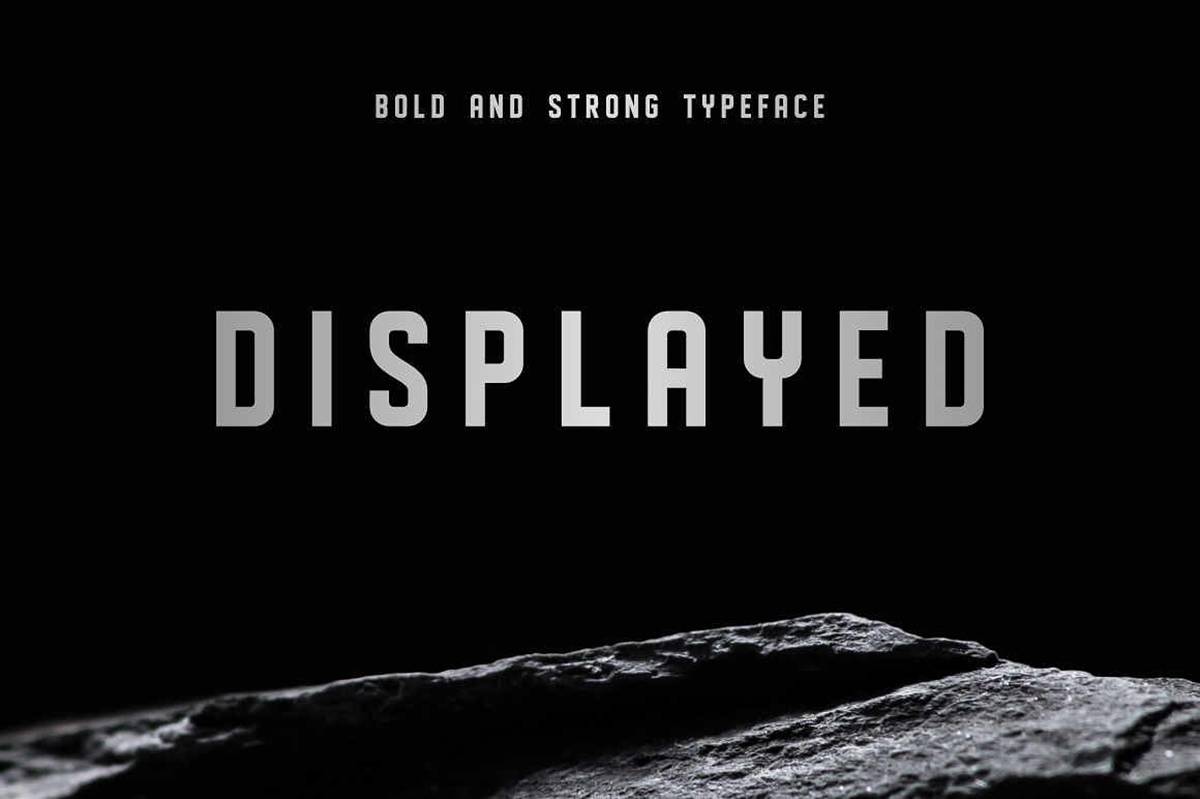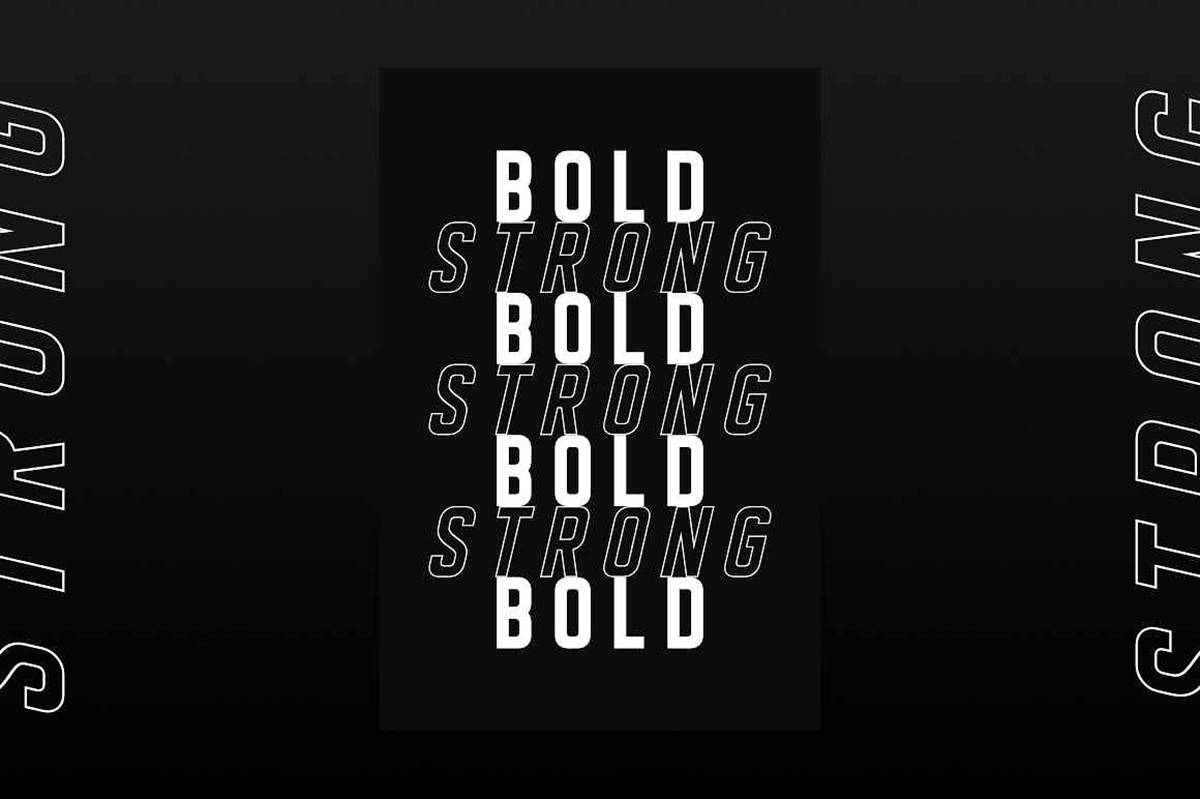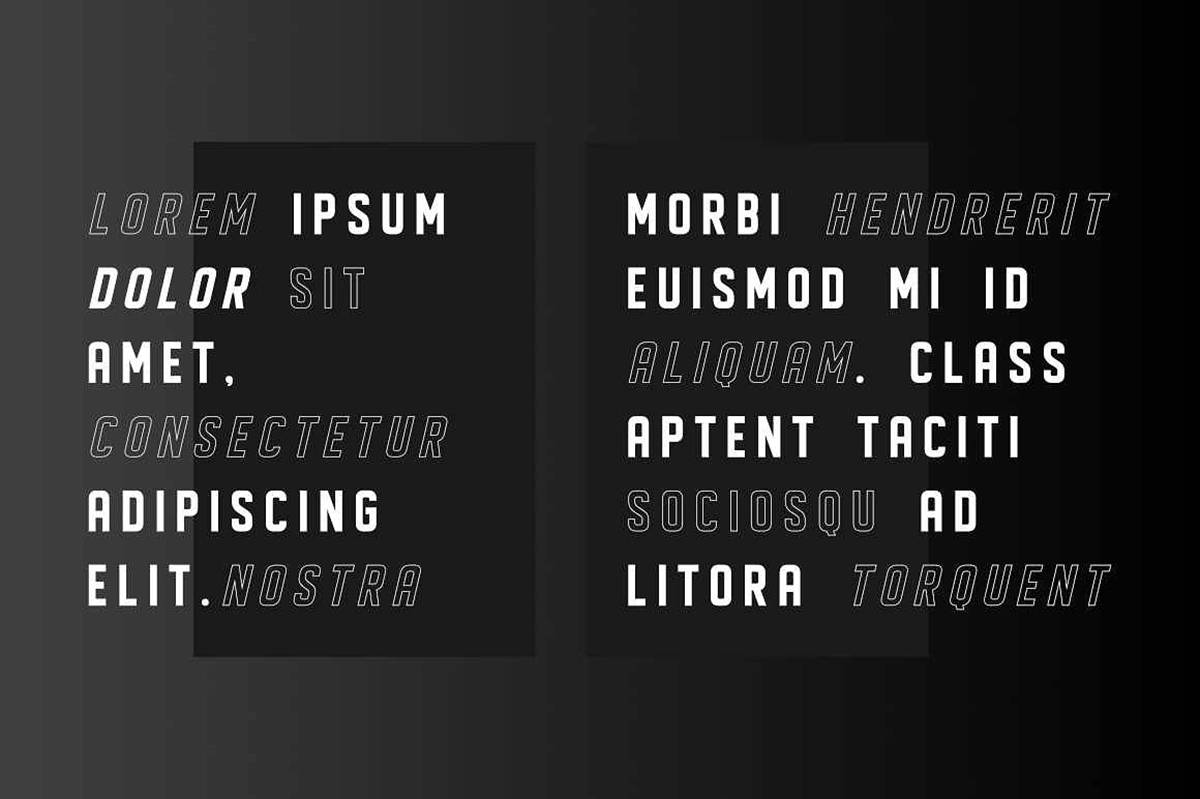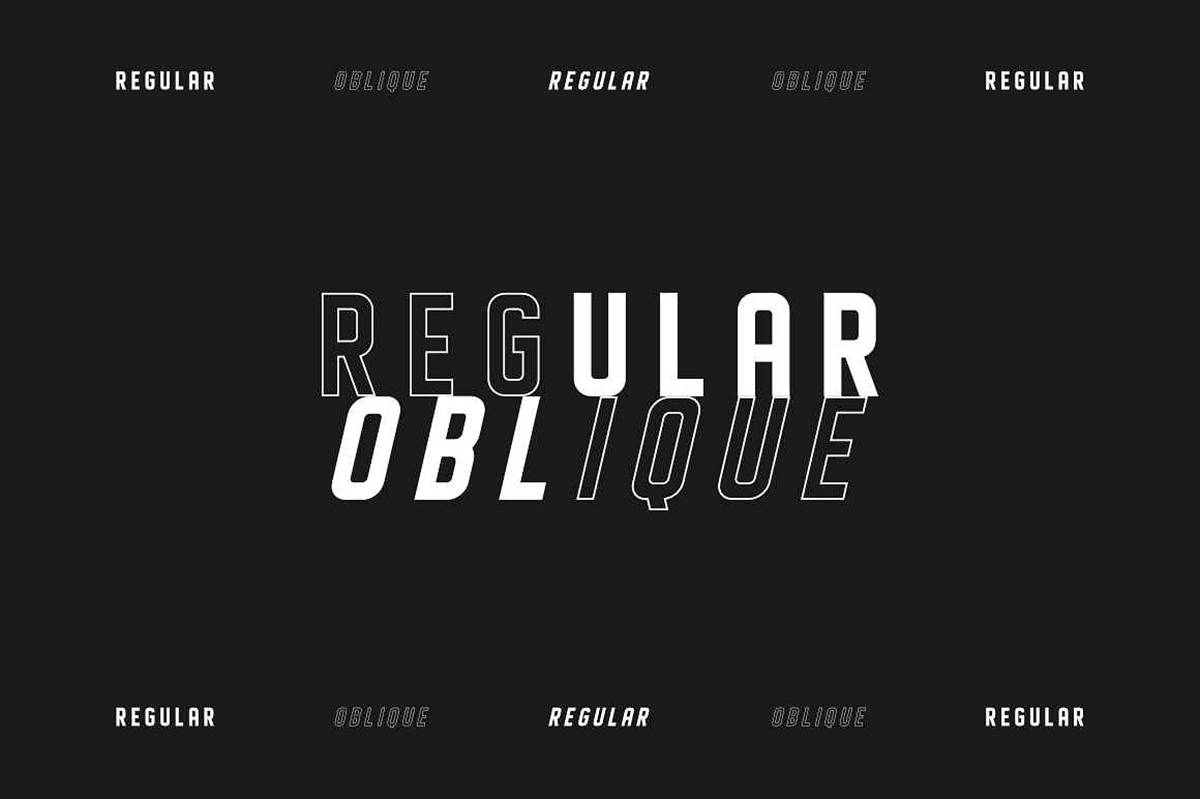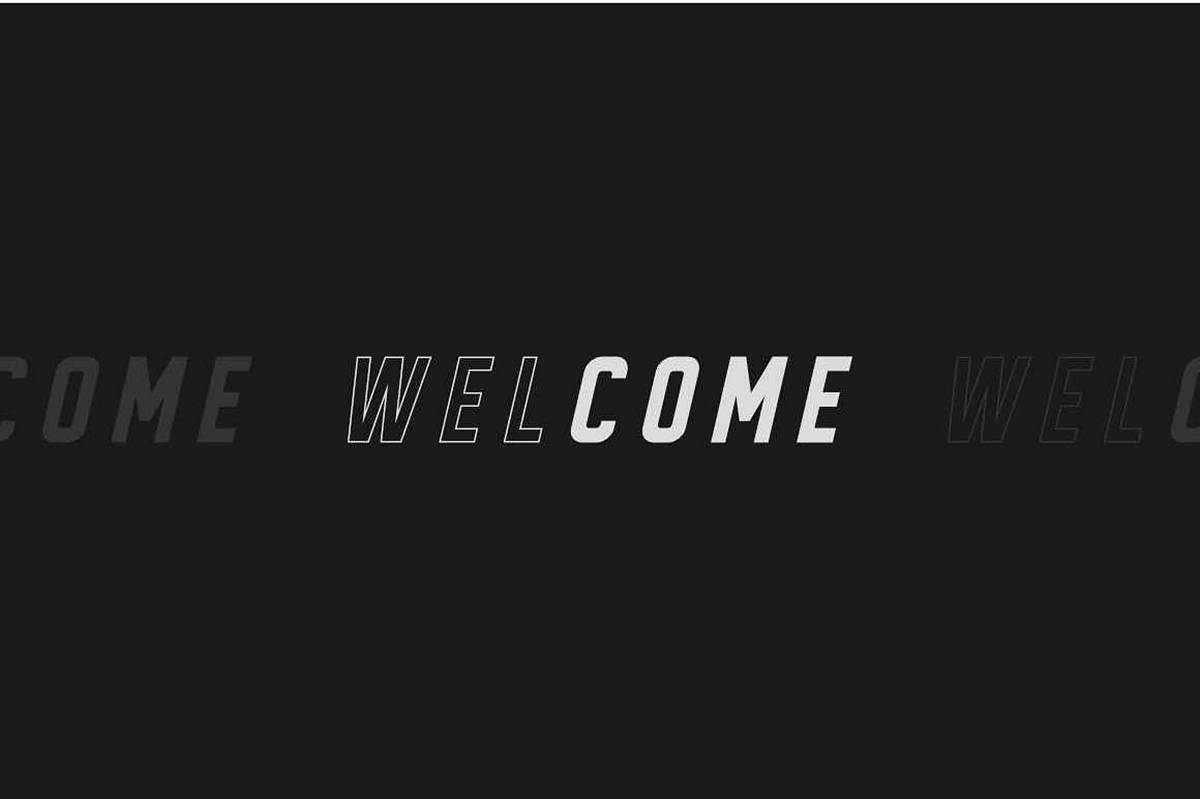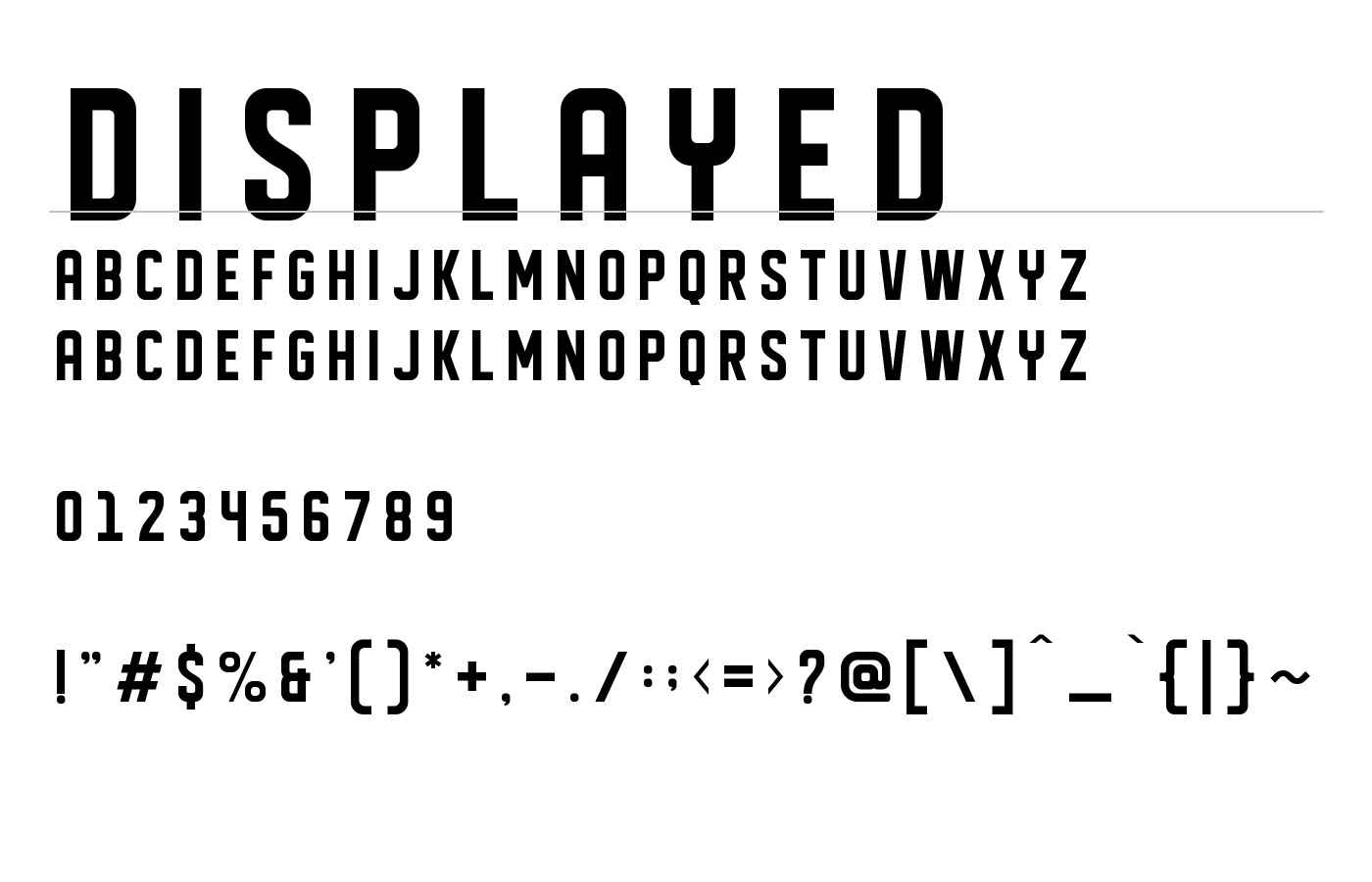
Displayed Font is a bold, condensed sans serif typeface with a modern, geometric feel. Its uniform stroke weight, squared terminals, and compact letterforms make it perfect for creating strong, impactful headlines and branding that demand attention. This font works well for tech, industrial, and contemporary designs where clarity and a clean, assertive presence are key.
Displayed Font
About Displayed Font